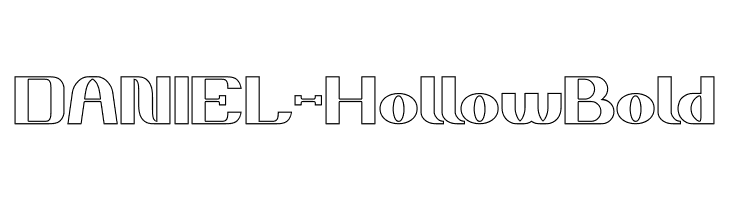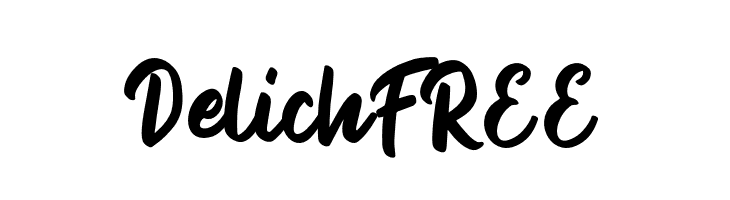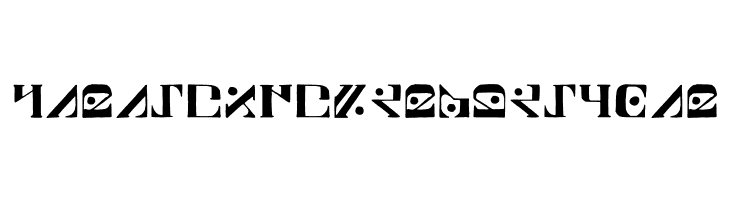
A bold, expressive handwritten font with dynamic strokes.
A bold, decorative font with diagonal line patterns for a modern look.
A bold, brush-stroke font with an energetic and artistic style.
A playful, casual handwritten font with rounded edges and consistent stroke width.
A flowing, cursive font with a handwritten style and elegant, connected characters.
A bold, geometric font with a segmented, filled design.
A flowing, cursive font with elegant and sophisticated script-like qualities.
A festive, snowflake-themed decorative font perfect for holiday designs.
Bold, angular italic font with a modern, dynamic style.
A lively, cursive font with a handwritten, artistic style.